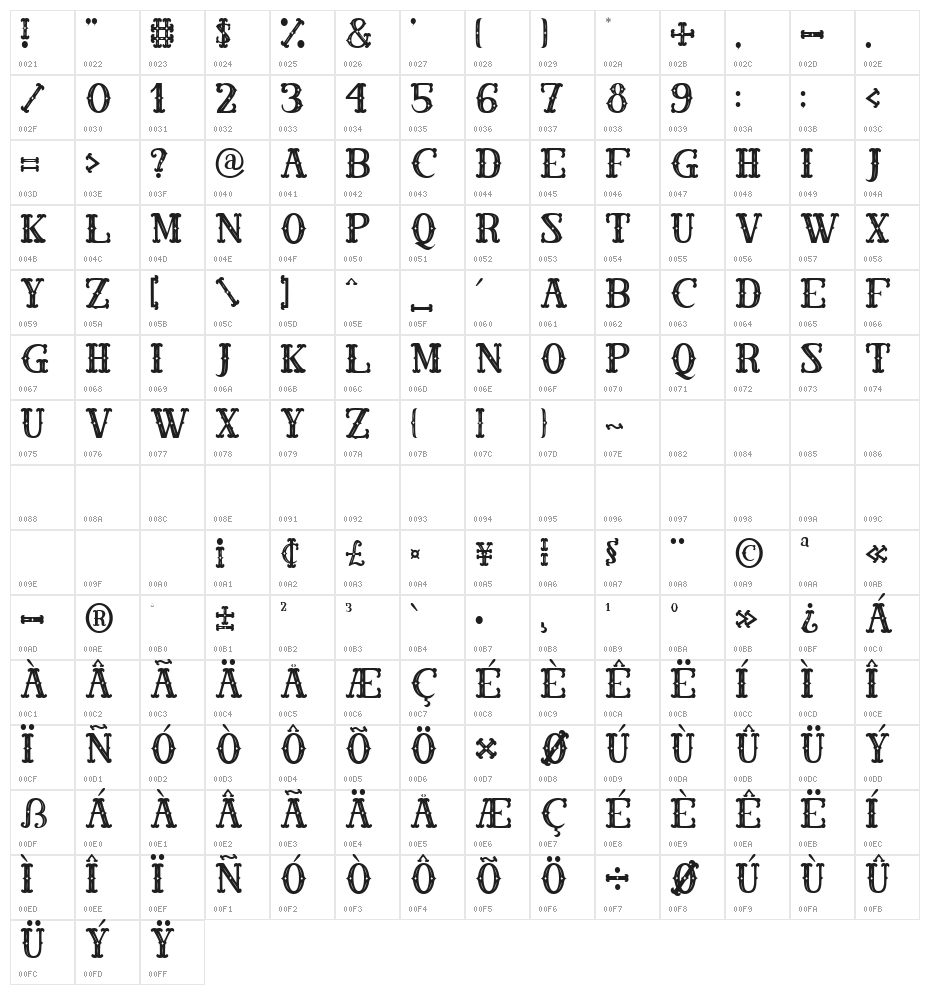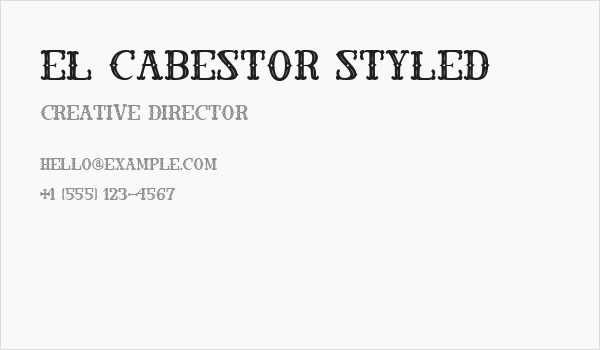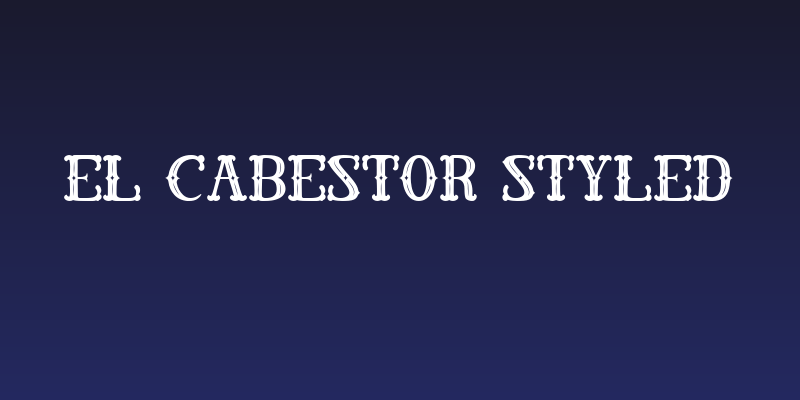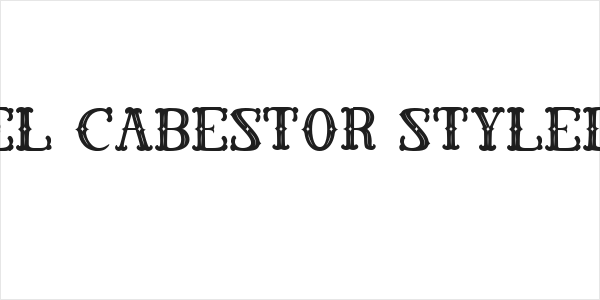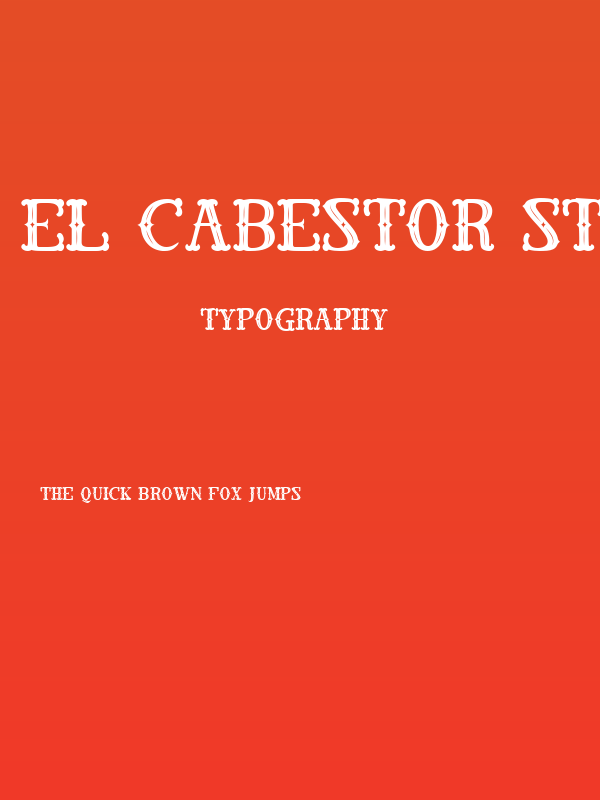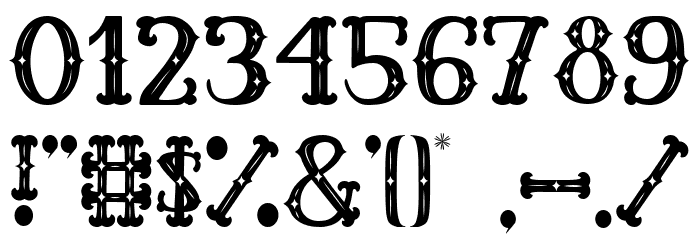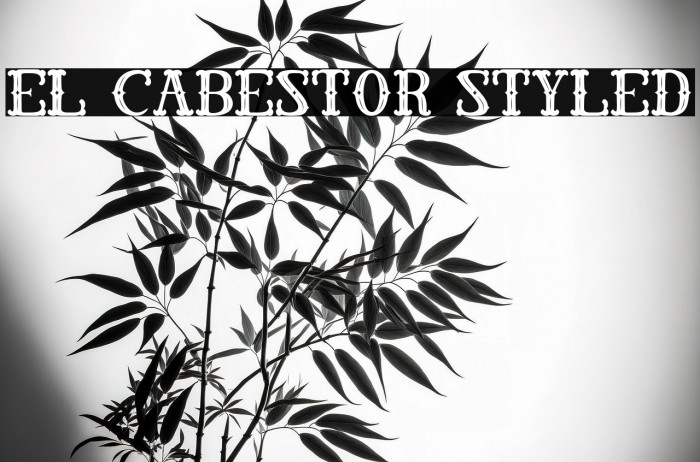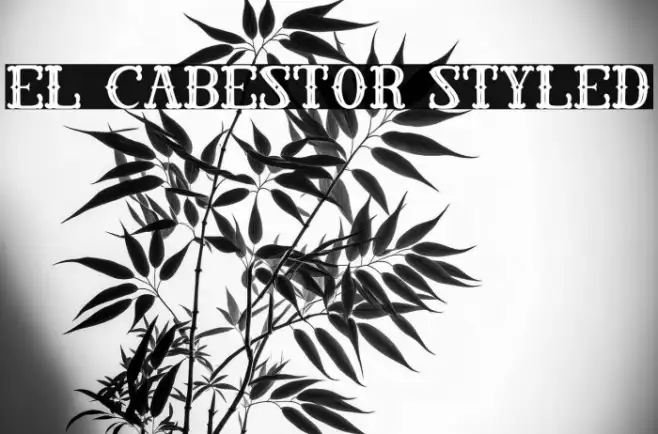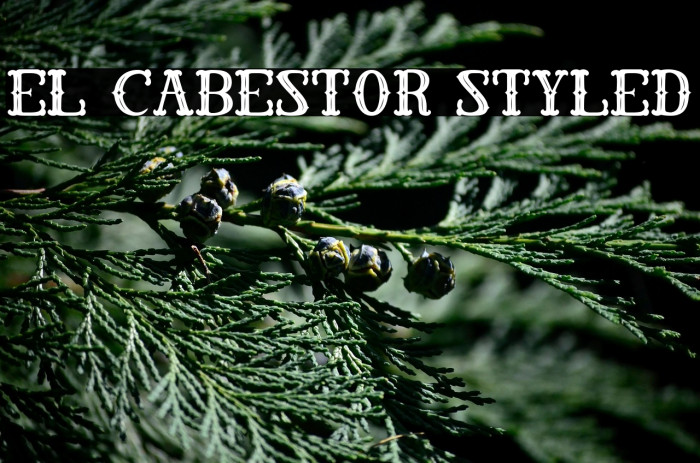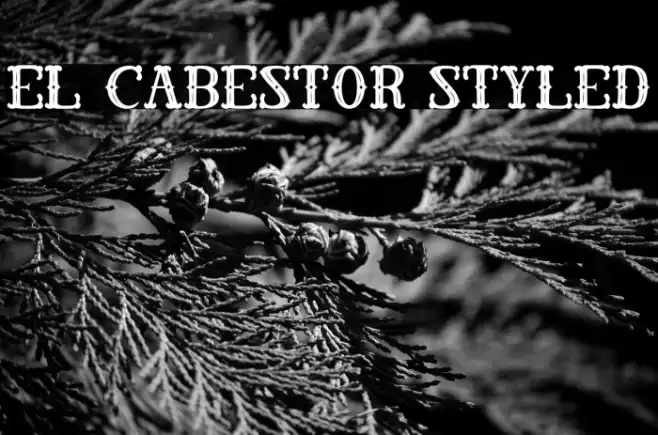
El Cabestor Styled Font
El Cabestor Styled Description
This font features a bold and decorative style with a unique flair. The characters are adorned with intricate details, including small serifs and ornamental elements that give it a distinct, eye-catching appearance. The uppercase and lowercase letters maintain a consistent design, while the numbers and special characters follow the same decorative theme. The overall look is both vintage and modern, making it versatile for various creative projects.